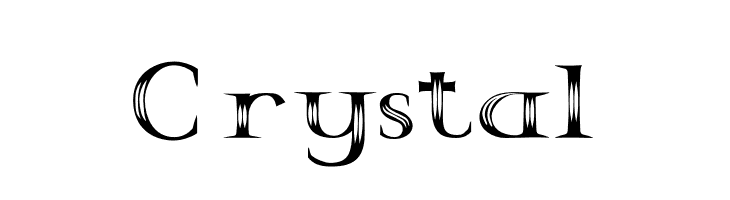
A decorative, geometric font with intricate patterns and bold lines.
An elegant script font with flowing, interconnected characters and refined flourishes.
A bold, brushstroke-style font with dynamic, jagged edges.
A fluid, handwritten style with a vintage, personal touch.
A bold, futuristic font with sharp, angular edges and a geometric style.
A bold, futuristic font with sharp angles and a geometric structure.
A futuristic, italic font with sharp angles and high contrast, perfect for dynamic designs.
A bold, serif font with strong, authoritative strokes and classic elegance.
A decorative font with high contrast and intricate, swirling lines.
A bold, geometric font with a modern and striking design.